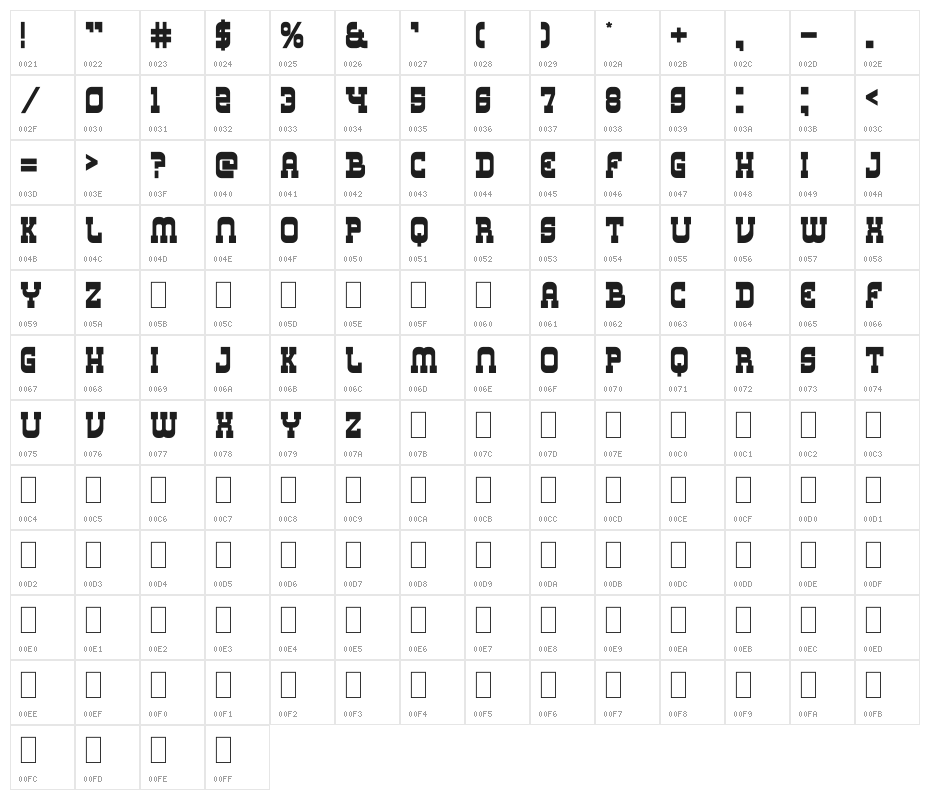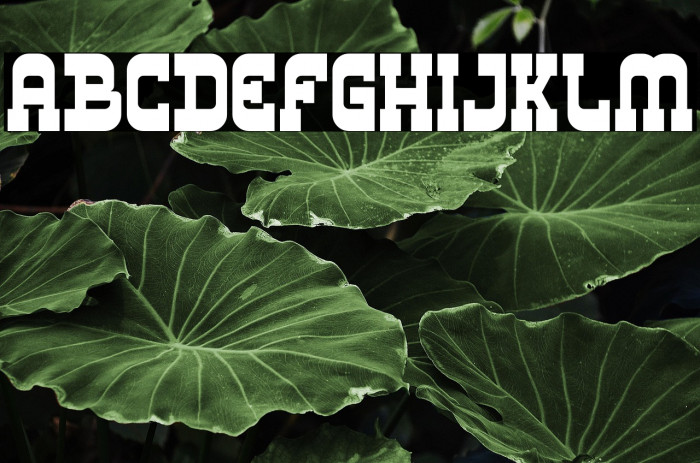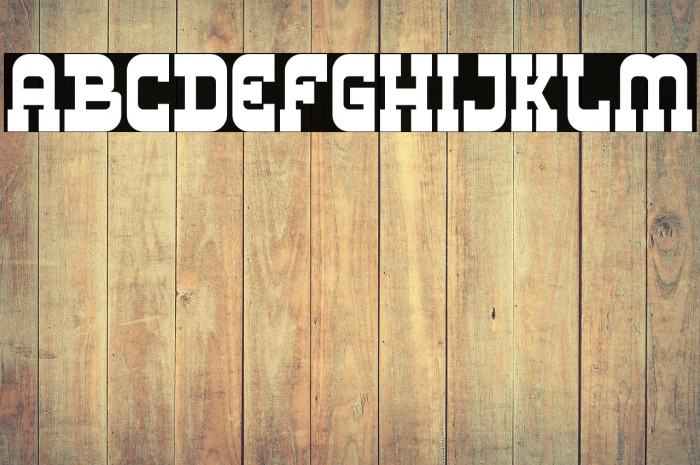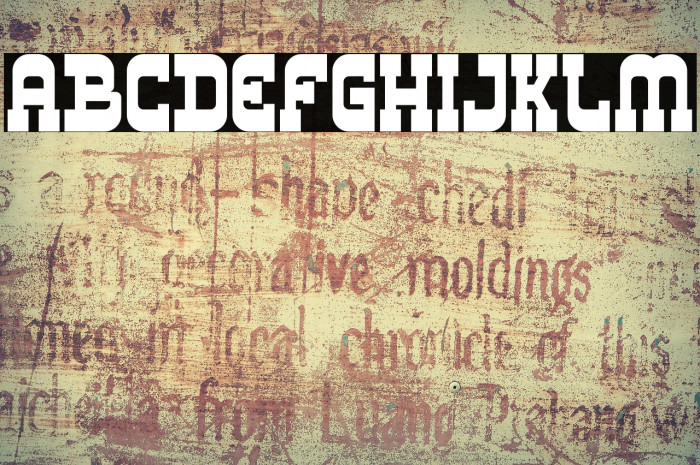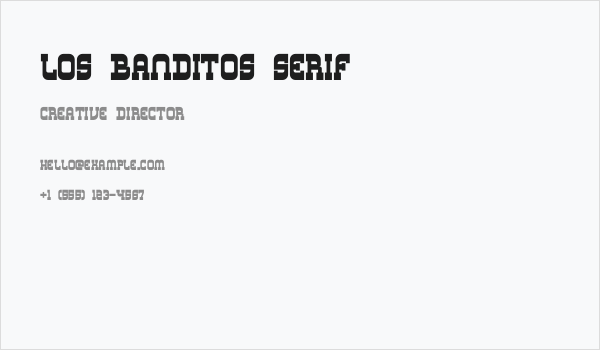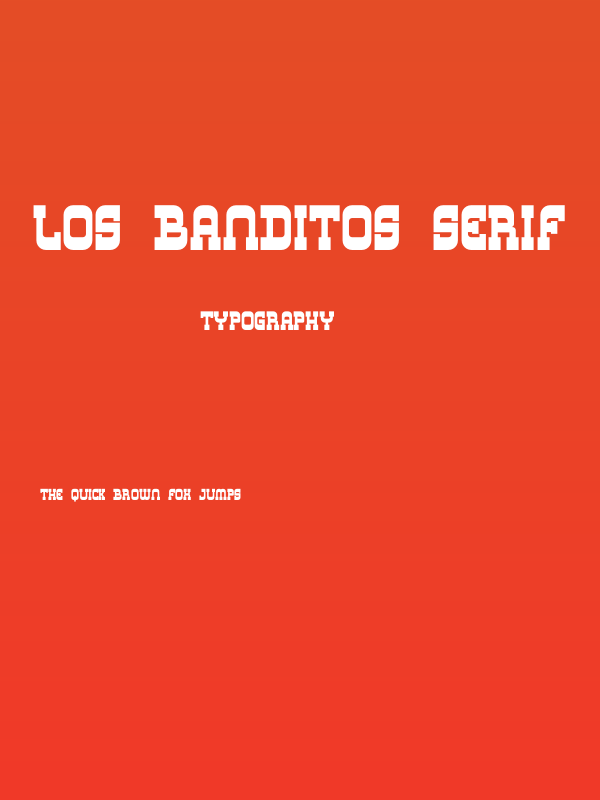
Los Banditos Serif Font
Los Banditos Serif Description
This font features a bold and robust design with a strong presence. The characters are blocky and geometric, with a distinct slab serif style that gives them a sturdy and impactful look. The uppercase letters are uniform in height, while the lowercase letters maintain a consistent style, contributing to a cohesive appearance. The numbers are equally bold, ensuring readability and emphasis. Special characters are designed to match the overall aesthetic, making them suitable for a variety of uses. The font's thick strokes and minimal contrast between thick and thin lines add to its boldness, making it ideal for attention-grabbing headlines and designs.
| Proposed Projects | Ideal for posters, logos, branding materials, and any design requiring a bold statement. |